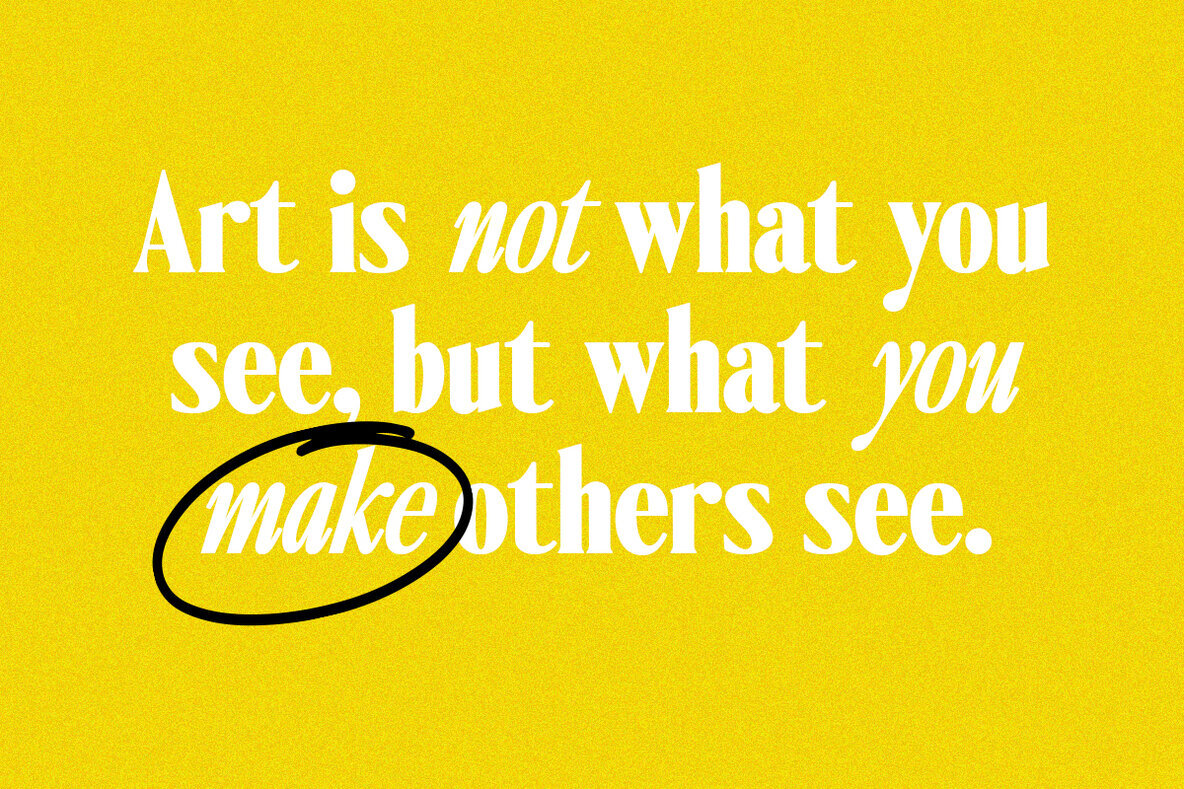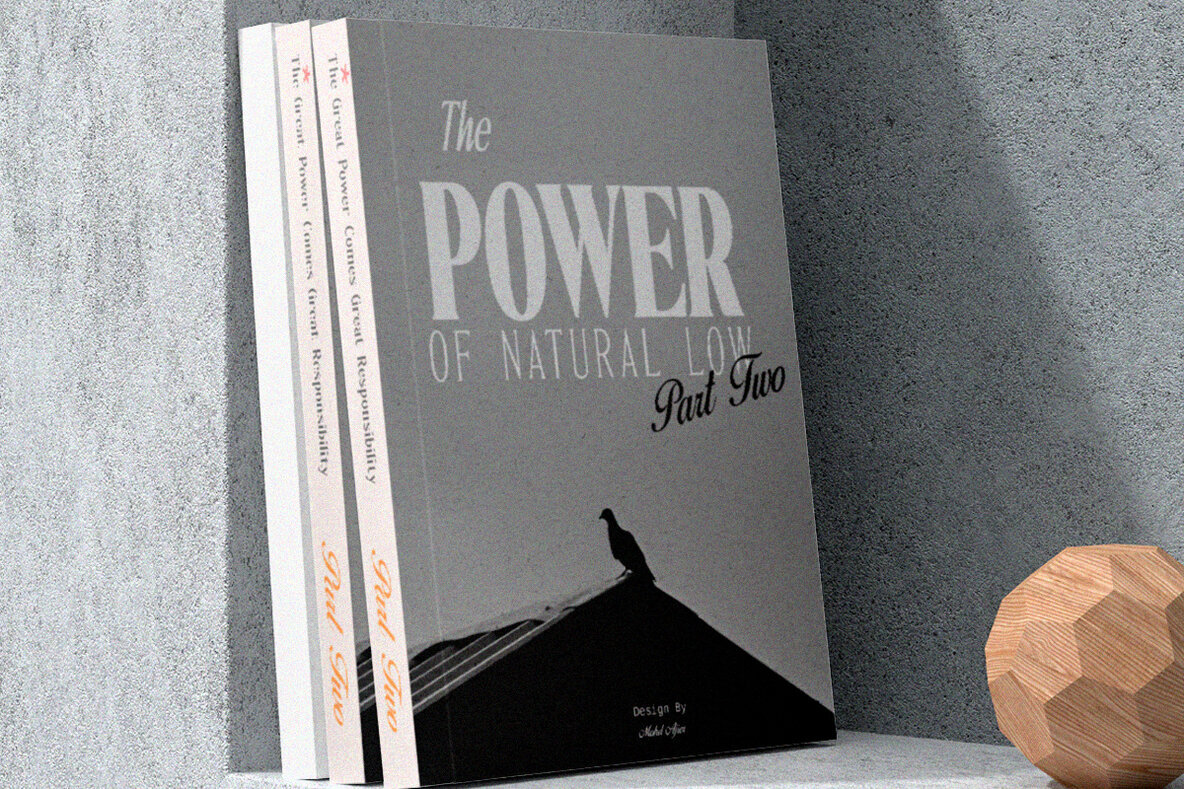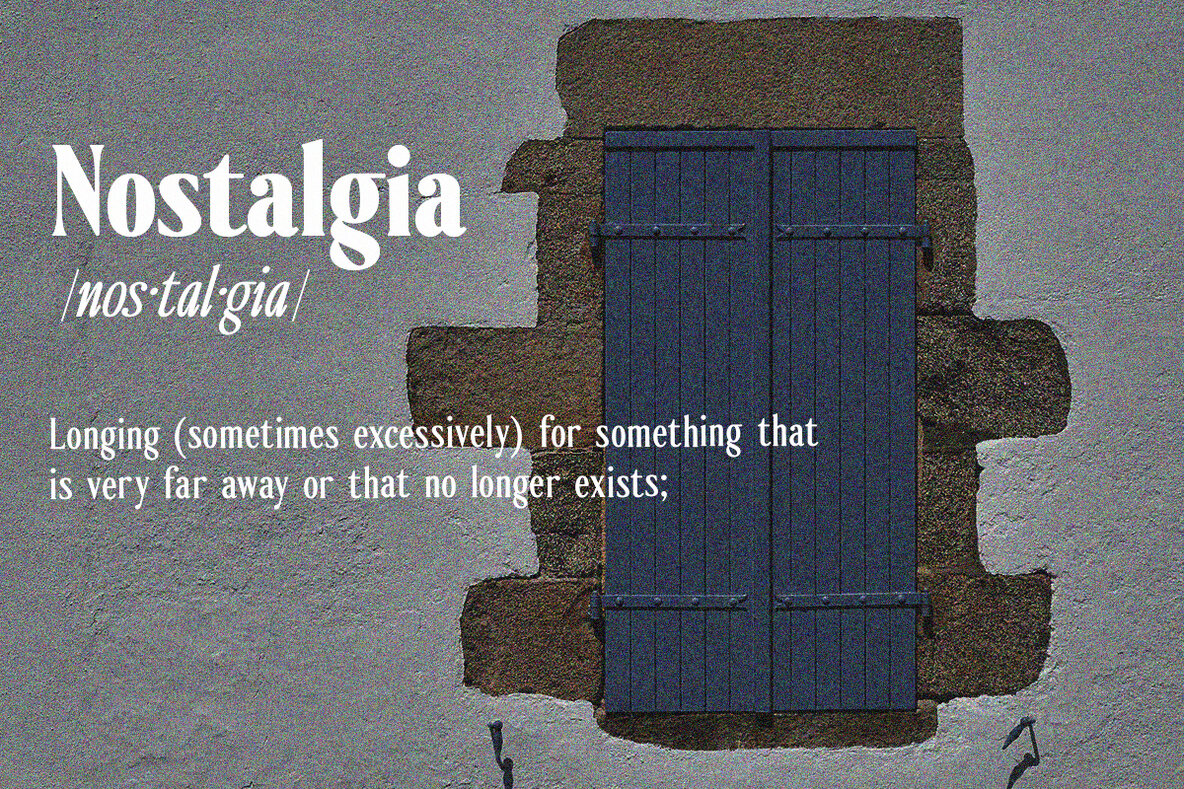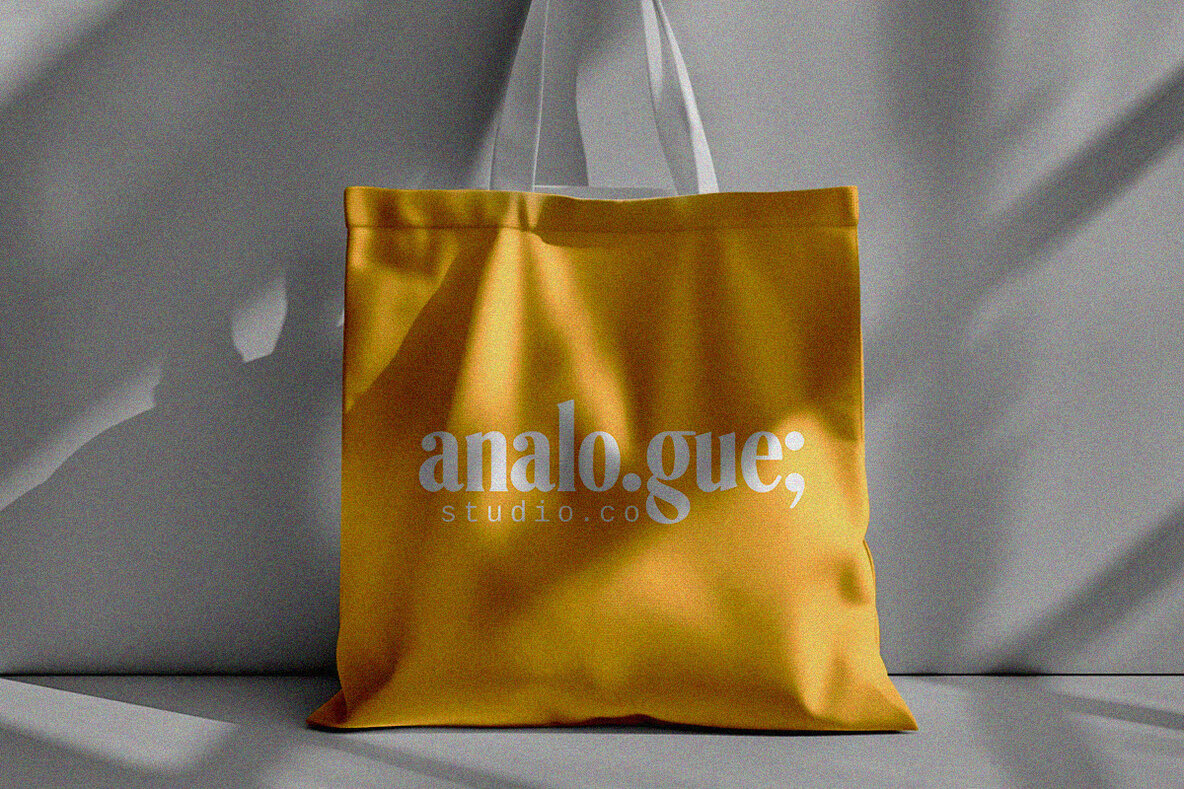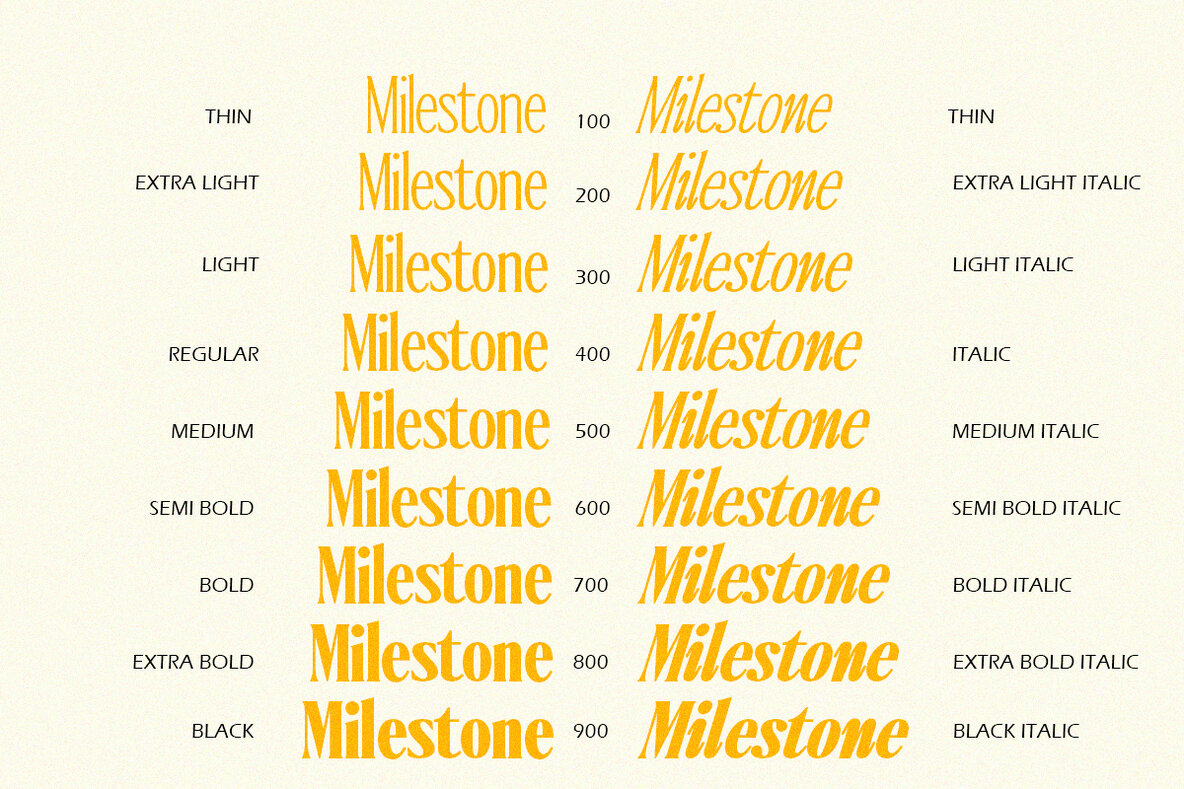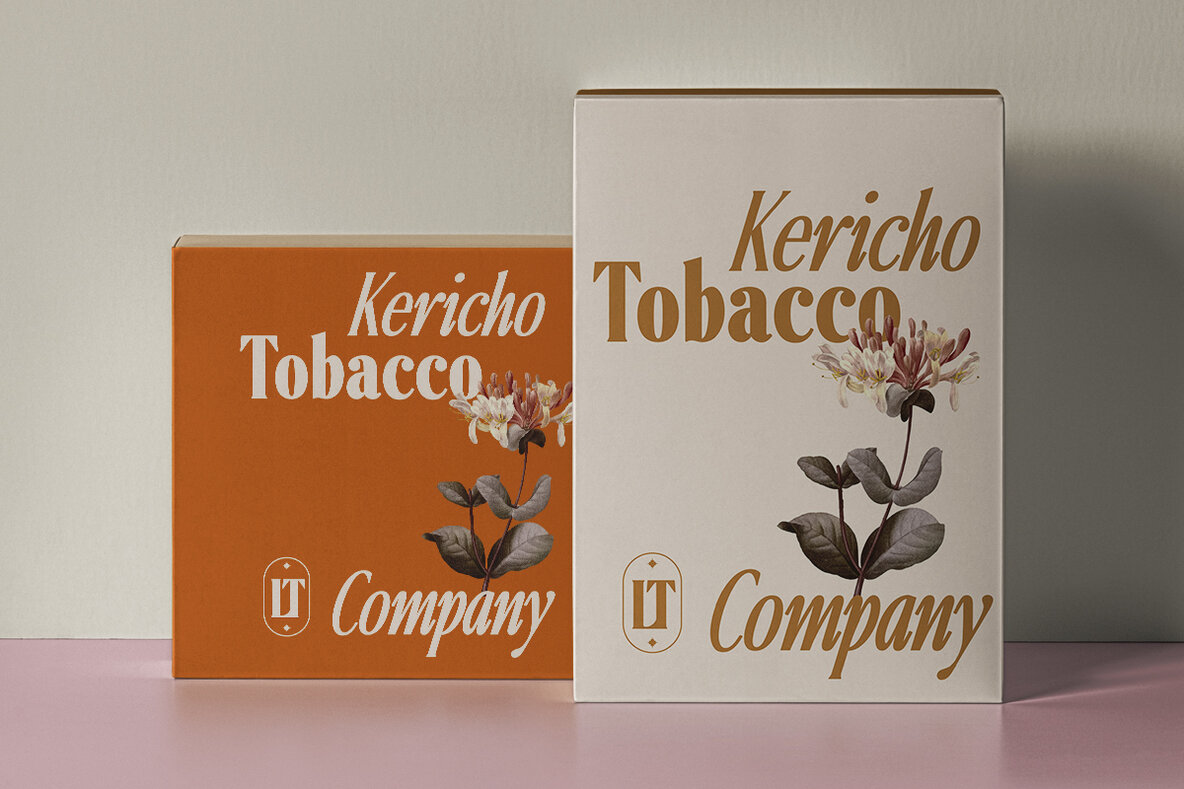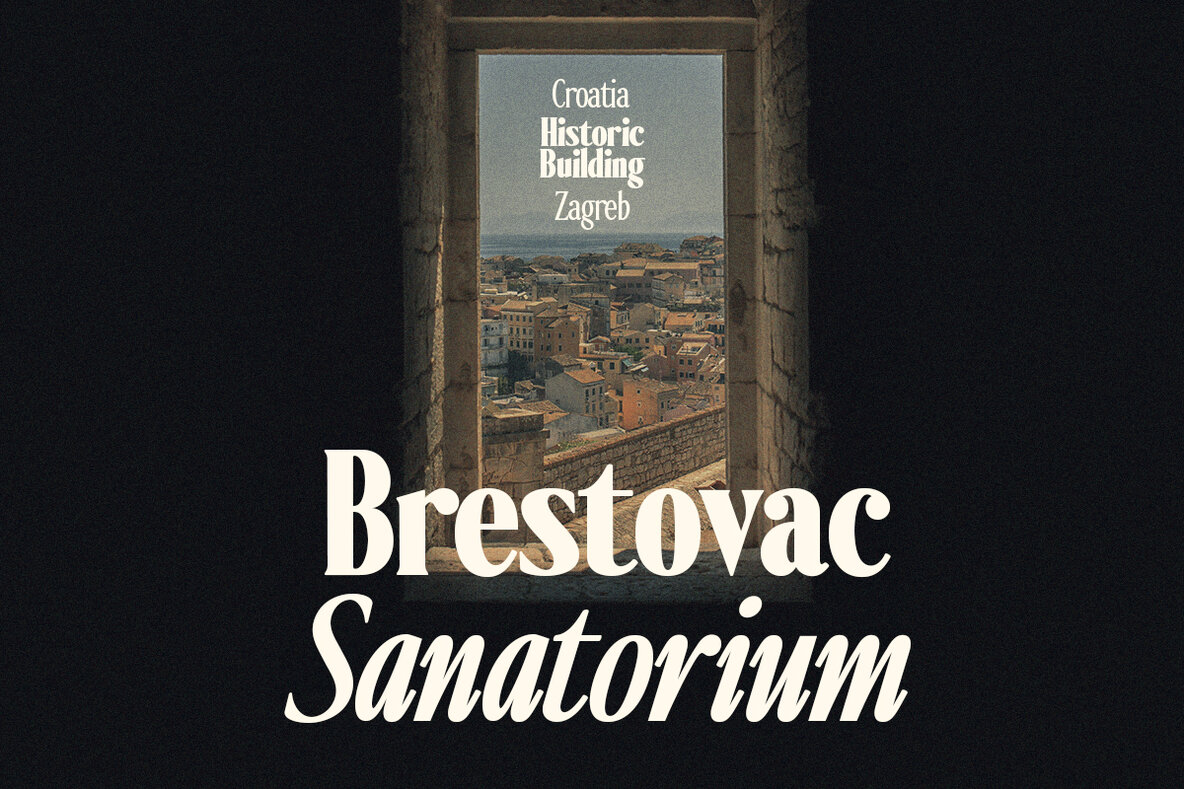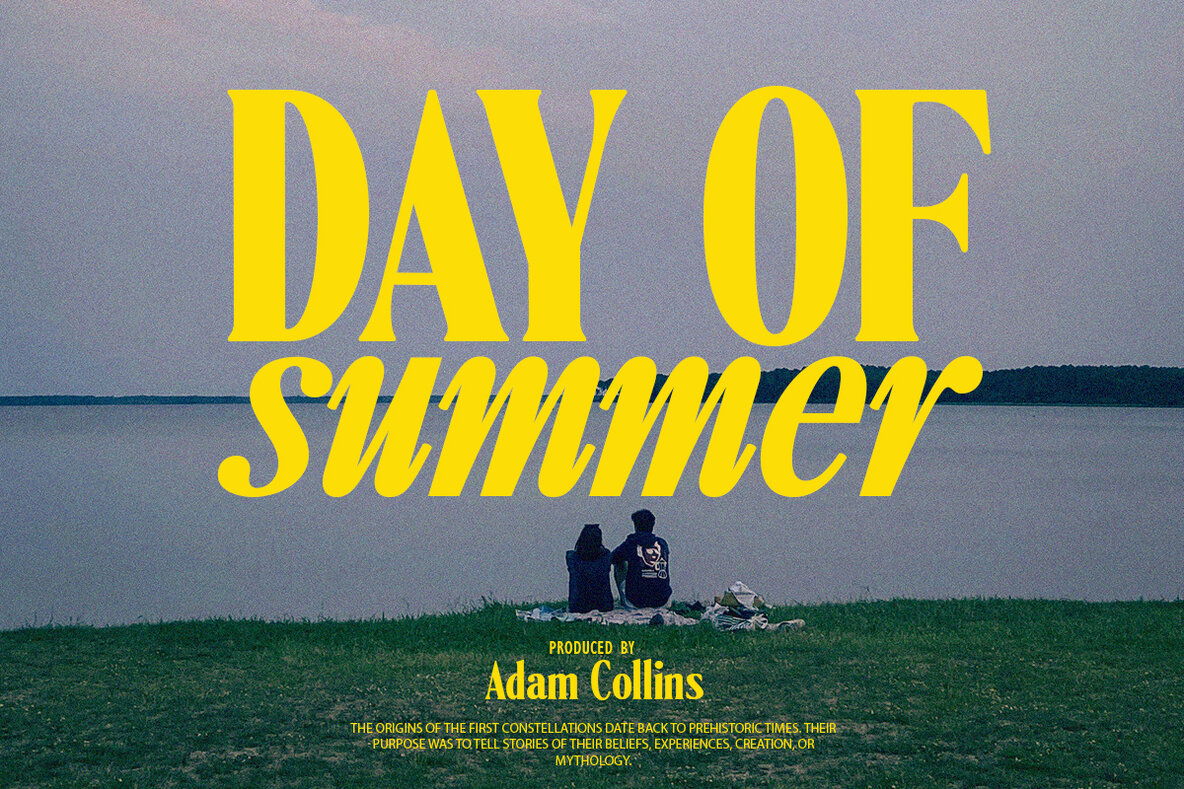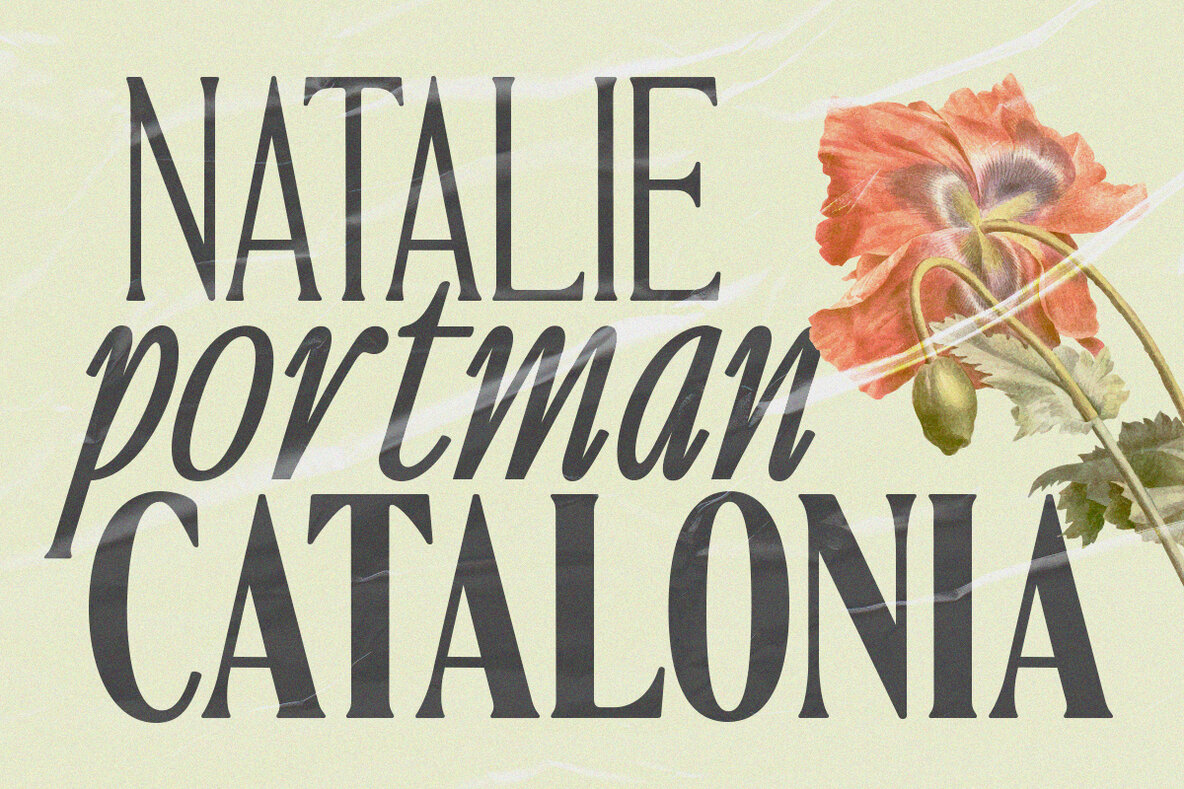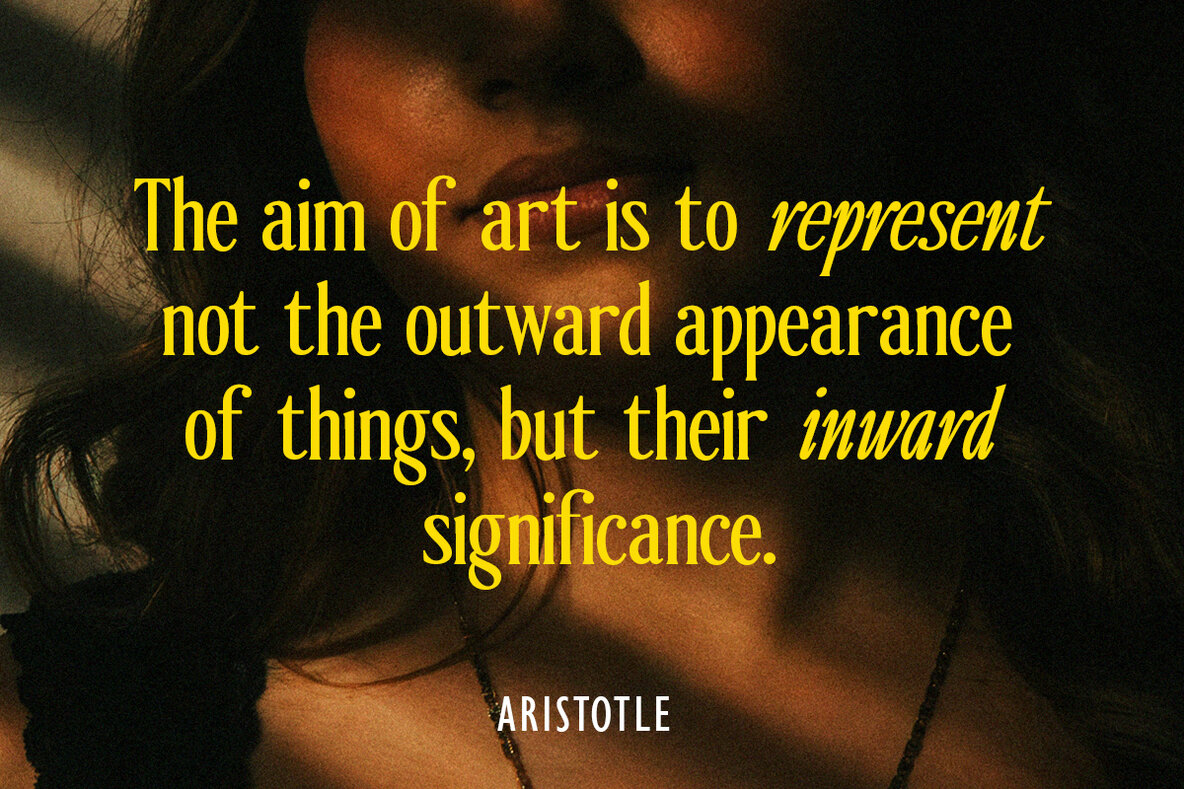
Ten Twenty Font
Ten Twenty is a unique Variable serif font with a modern twist. With elegant and slender letterforms, this font offers a distinctive and captivating beauty. The font expands its use by providing weights ranging from thin to black. Natural curves, swollen stems and beveled, characterful stems develop as the weight of the font increases. While its thinner weight has lowered contrast and optical correction to create a warm and soft look. Featuring beautiful italics, excellent weight, and broad language support. Ten Twenty comes with two versions Variable Regular and Italic, giving you the option to customize your design project to your needs. Use Ten Twenty to add a professional feel to your designs and make them more appealing to your audience.